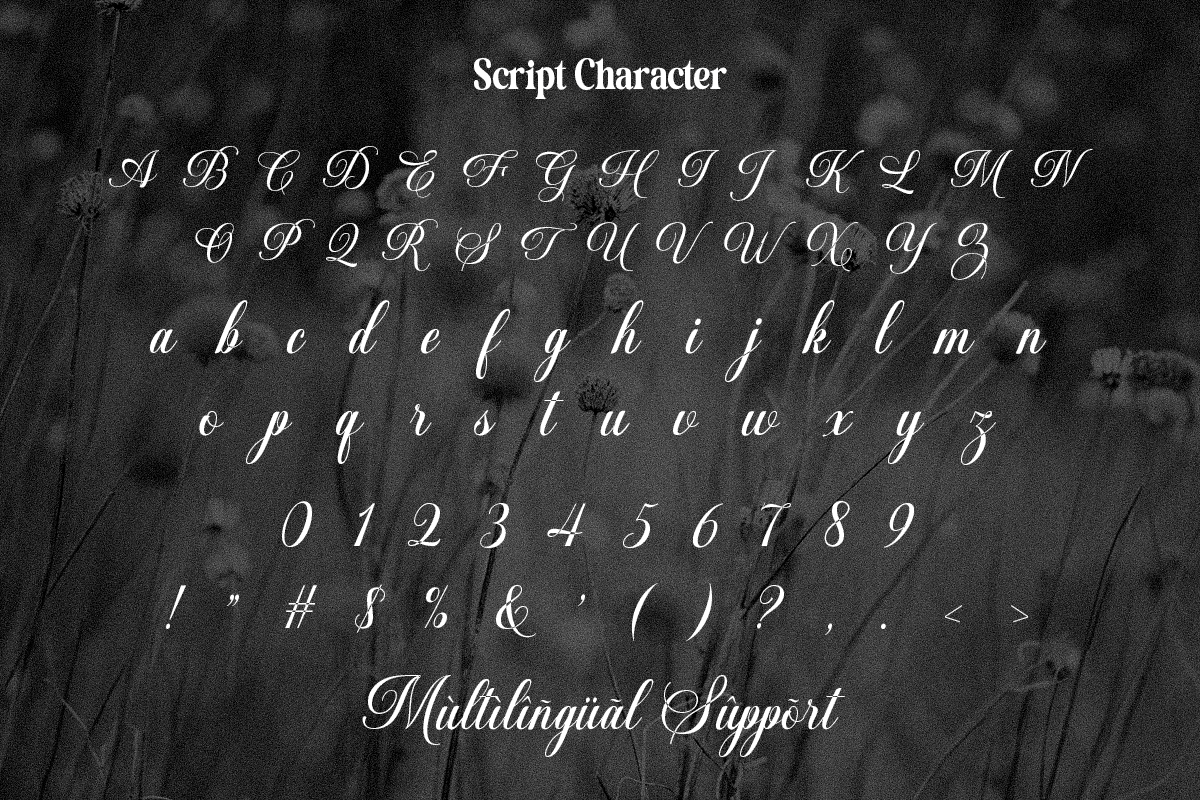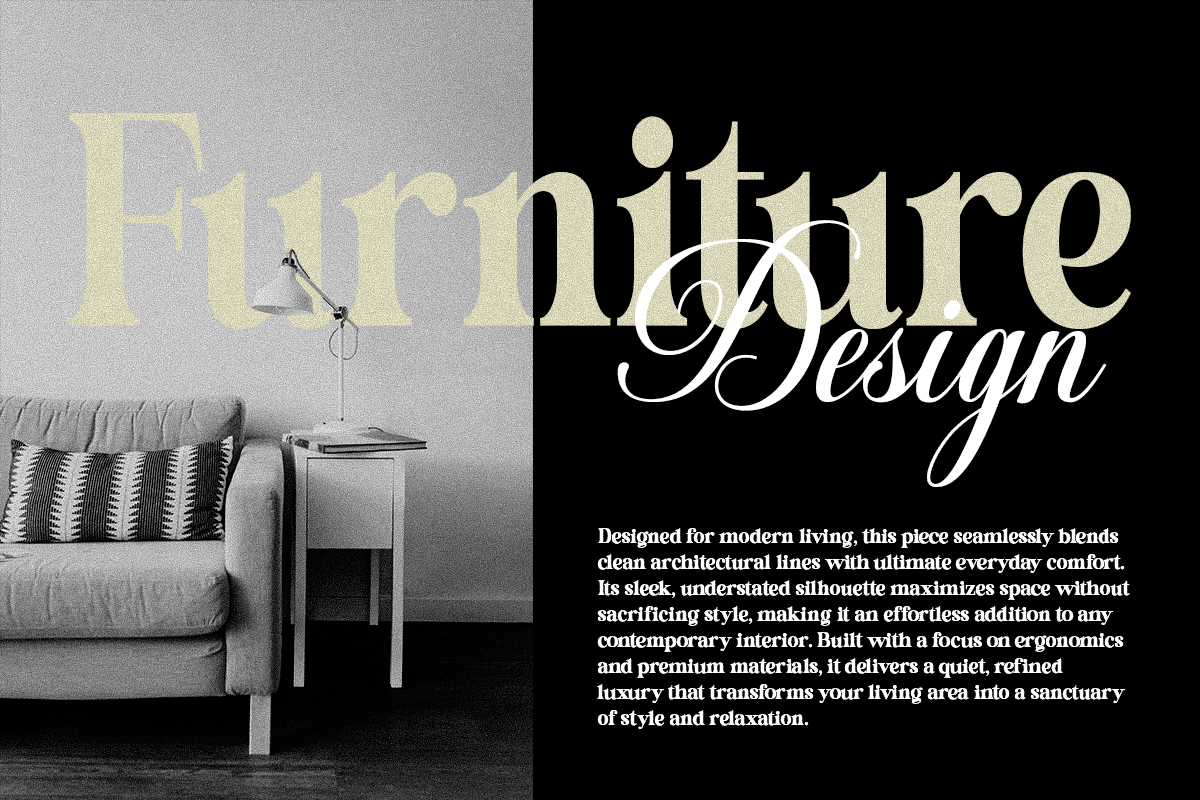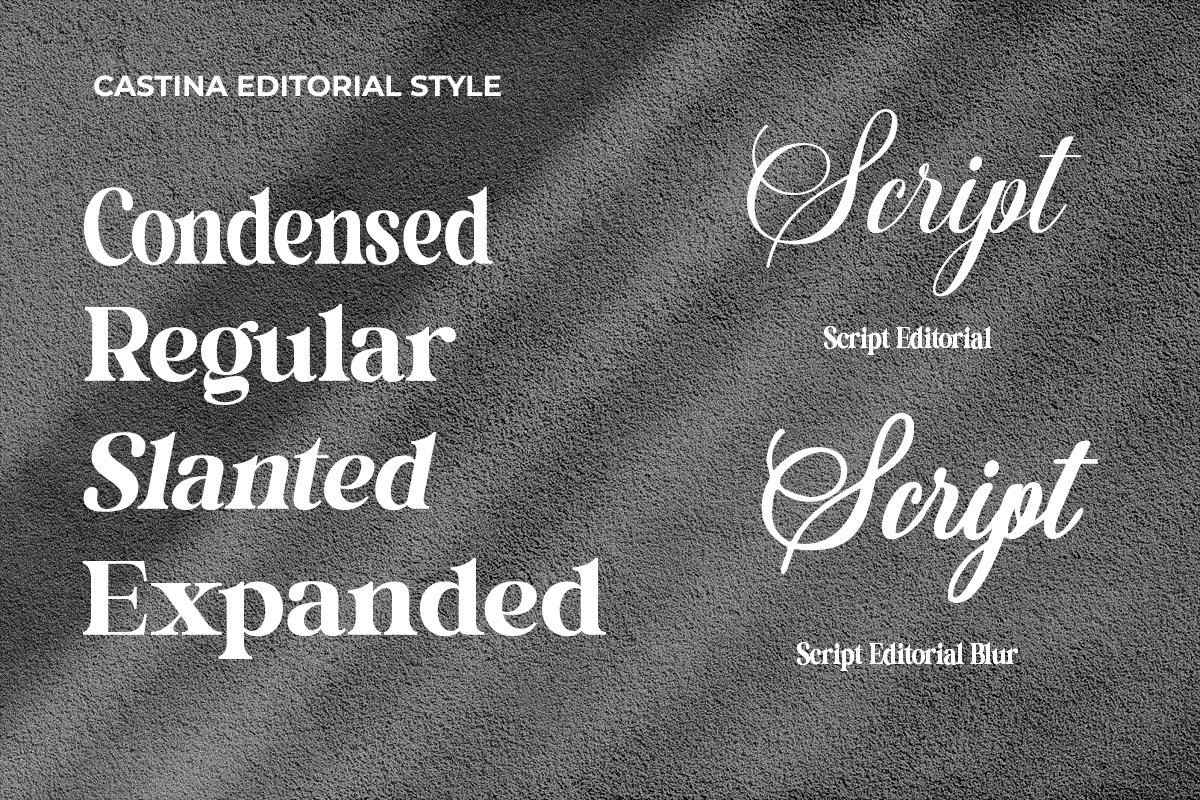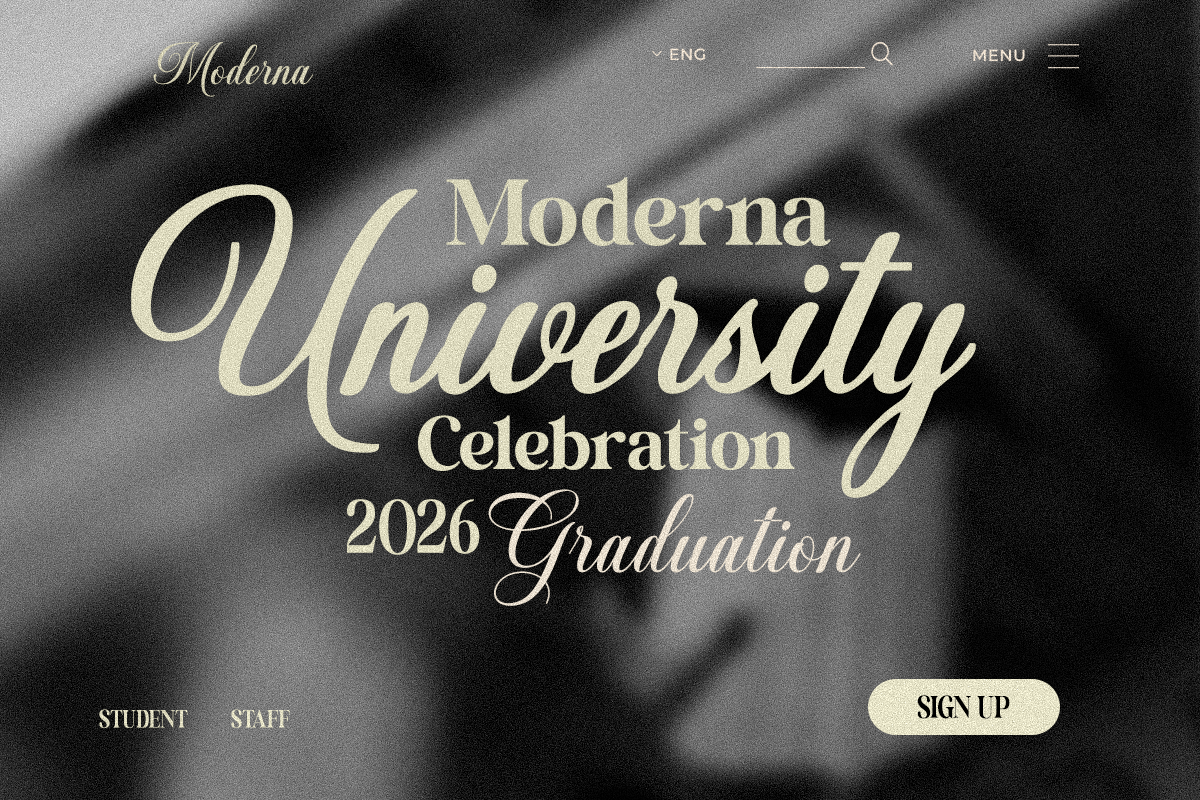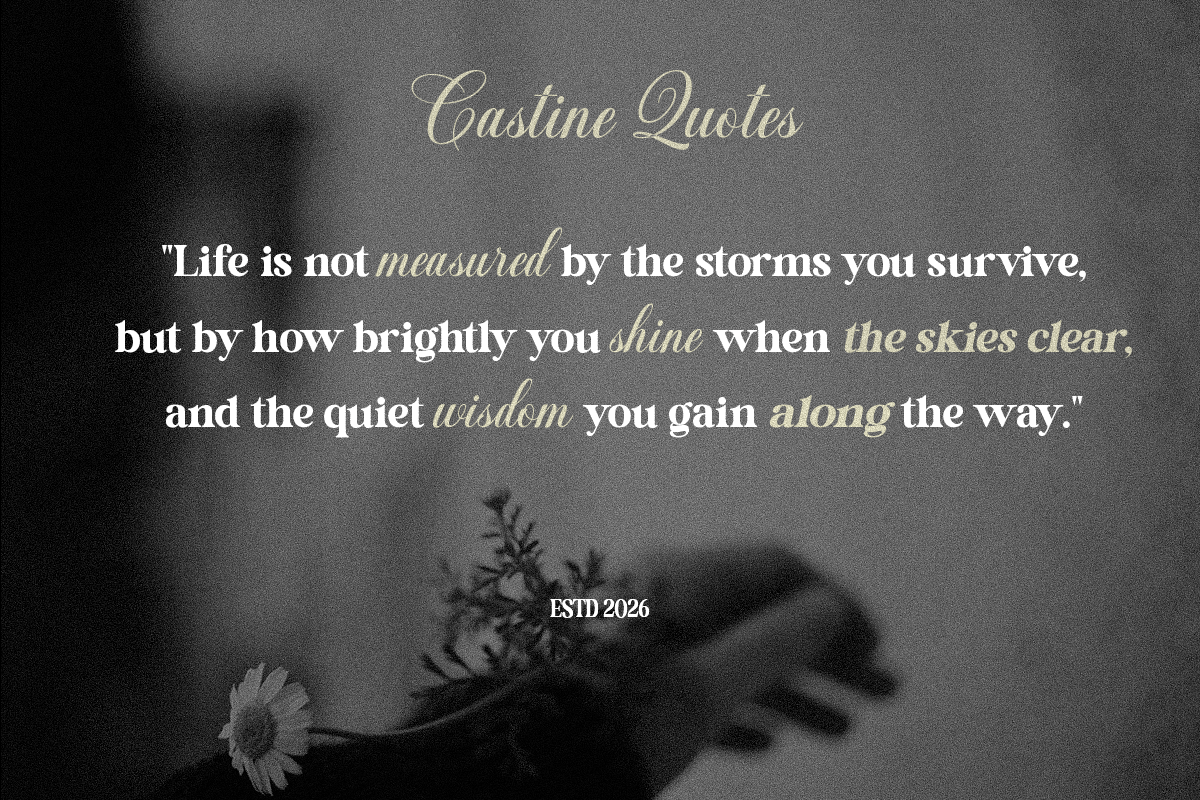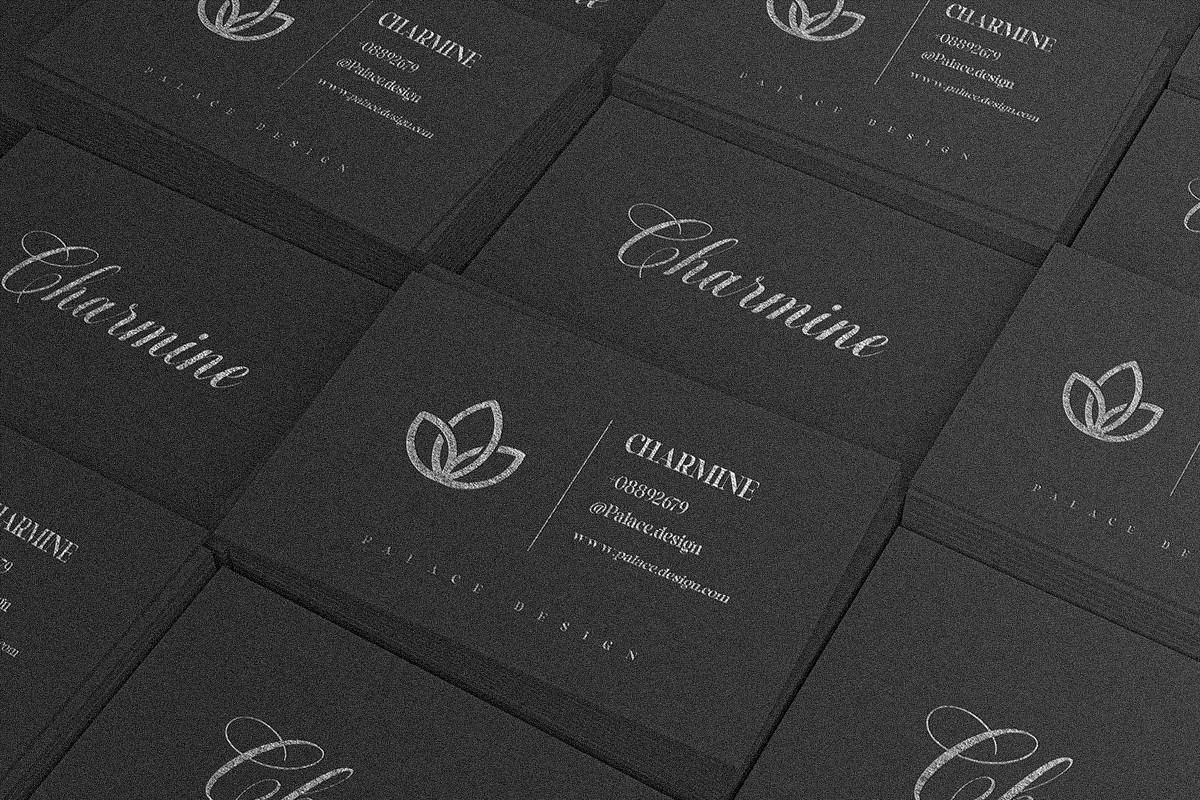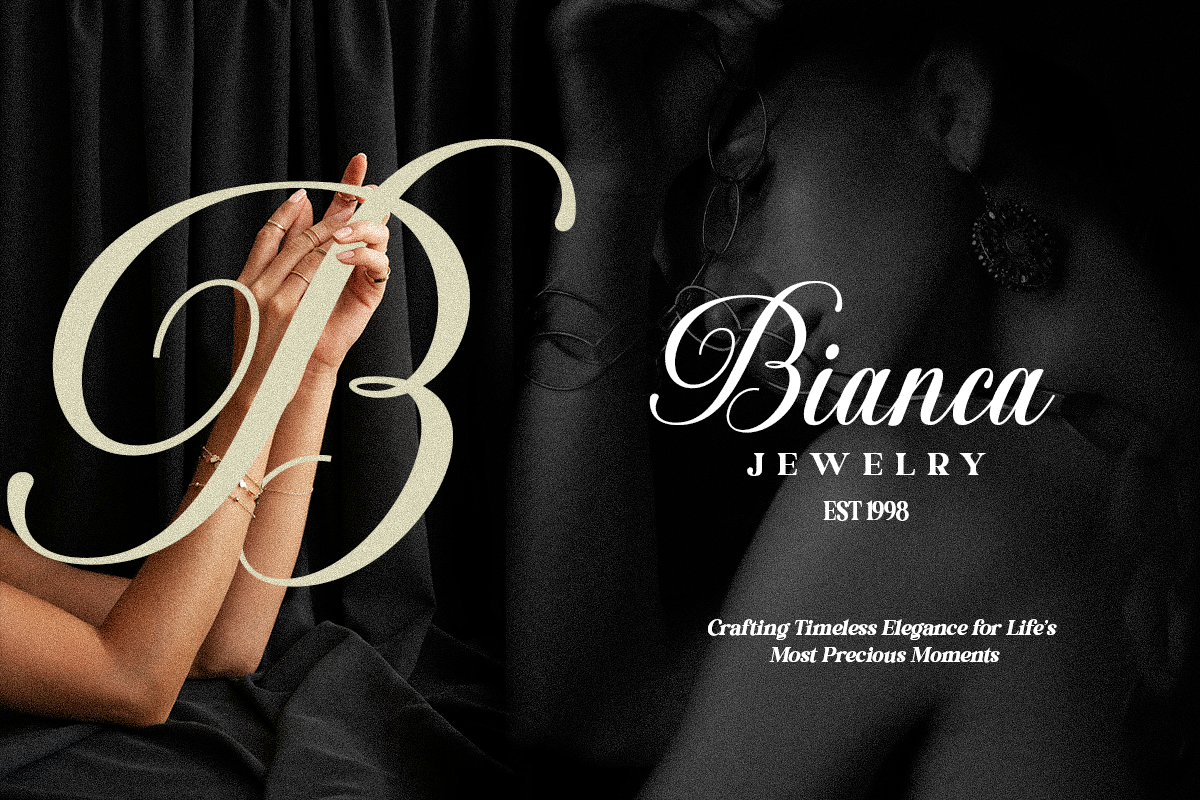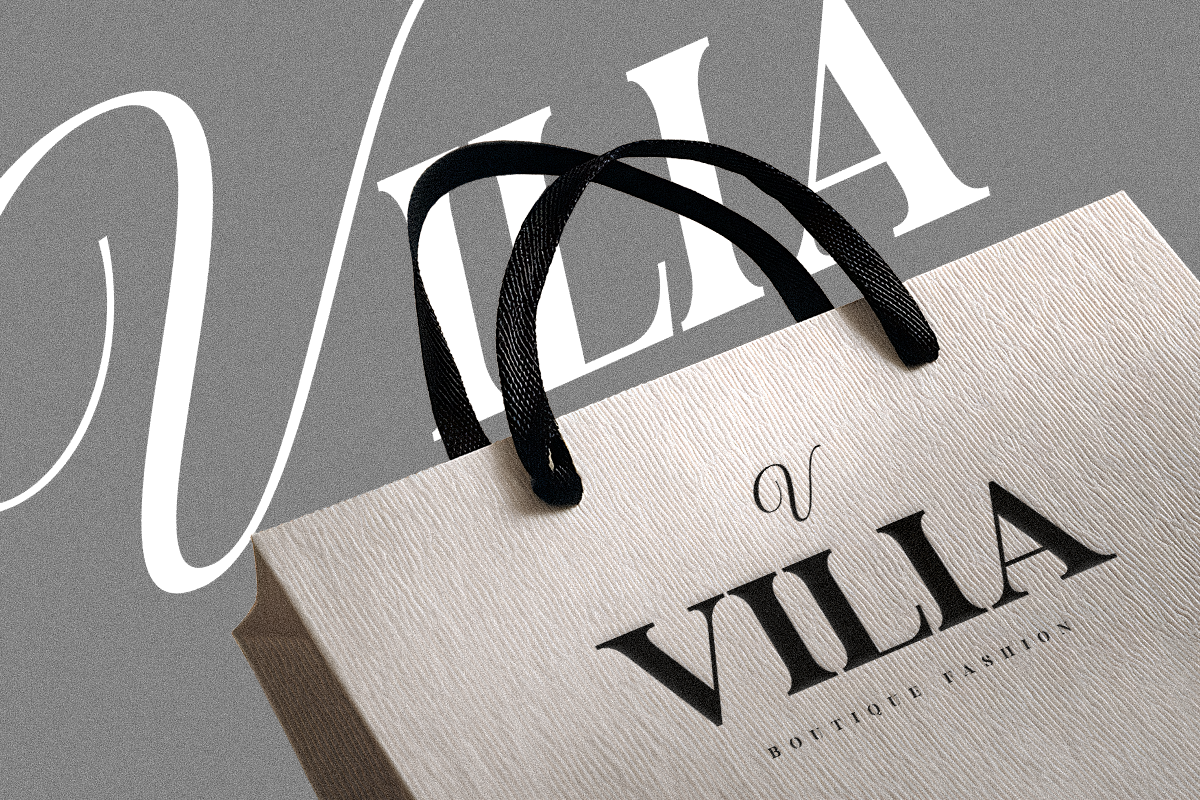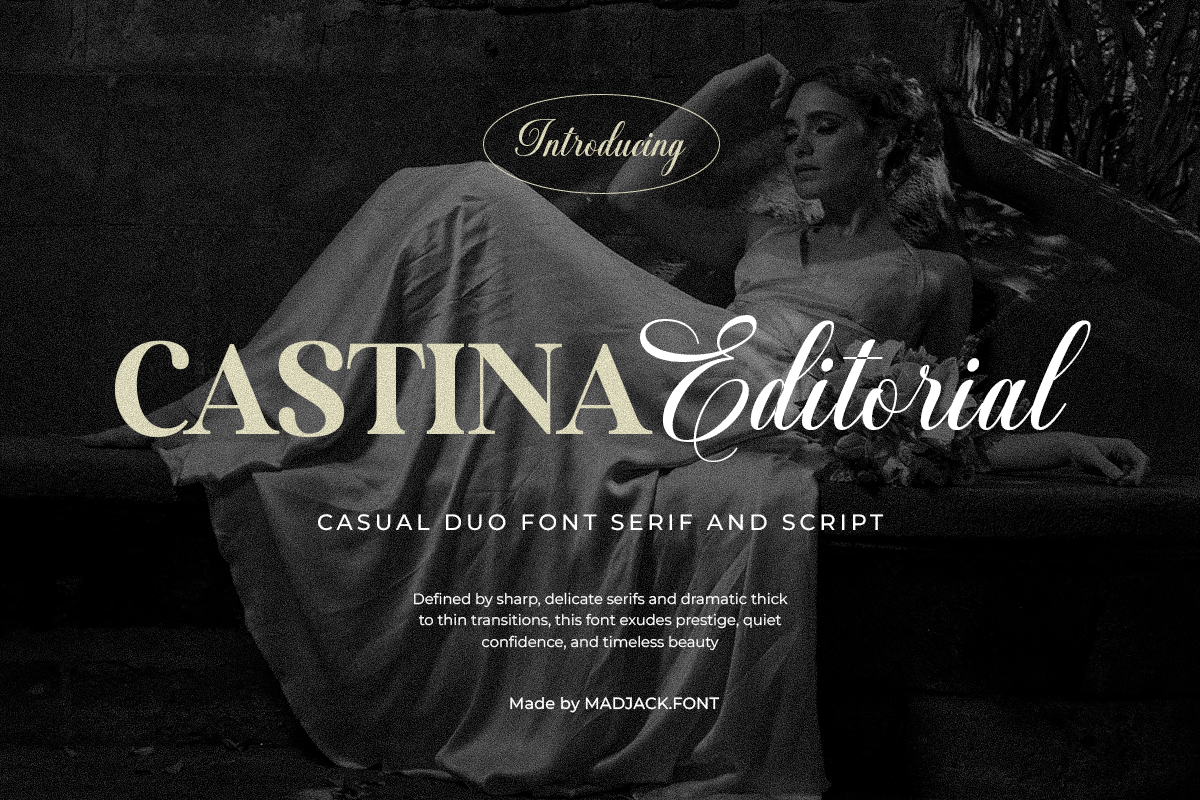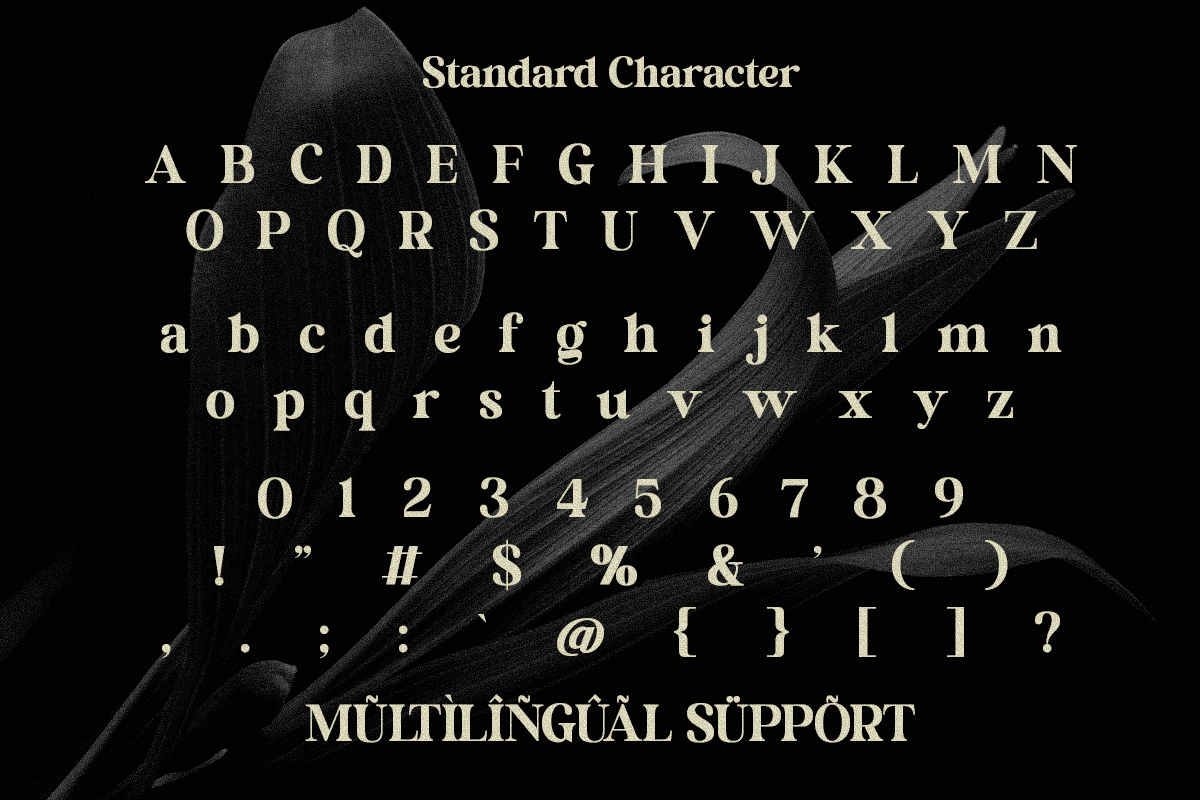
Castina Editorial Font Duo
Castina Editorial is a luxurious font duo that seamlessly combines a sophisticated high-contrast serif with a graceful signature script. Created for designers who appreciate timeless elegance, this typeface blends classic editorial aesthetics with contemporary refinement, making it the perfect choice for premium branding and high-end creative projects.
The serif font features sharp, delicate serifs, dramatic thick-to-thin contrast, and refined letterforms inspired by luxury fashion magazines and editorial typography. Its clean structure delivers a strong yet graceful presence, making headlines and logos look bold, stylish, and memorable.
Complementing the serif is a beautifully flowing script font with smooth curves, elegant swashes, and natural handwritten movement. The script adds warmth, romance, and personality, creating a harmonious contrast when paired with the serif. Together, they produce sophisticated typography that feels both modern and timeless.
Whether you're designing for luxury brands, wedding stationery, fashion campaigns, or premium packaging, Castina Editorial offers versatility and elegance in every letter. The combination of structured serif and expressive script allows you to create stunning compositions that capture attention while maintaining a refined, professional appearance.
Luxury Branding
Fashion & Editorial Design
Wedding Invitations
Beauty & Cosmetic Brands
Jewelry & Perfume Packaging
Boutique Logos
Magazine Headlines
Elegant Stationery
Certificates & Invitations
Font Characteristics
Elegant High-Contrast Serif
Flowing Handwritten Script
Luxury & Editorial Style
Classic Yet Modern Appearance
Clean, Refined, and Sophisticated
Perfect Serif and Script Pairing
Suitable for Both Print and Digital Designs
Castina Editorial is more than just a font—it's a complete typography duo designed to bring elegance, prestige, and timeless beauty to every creative project. With its perfect balance of bold sophistication and graceful handwriting, it helps designers create unforgettable visual identities that stand out with confidence and style.